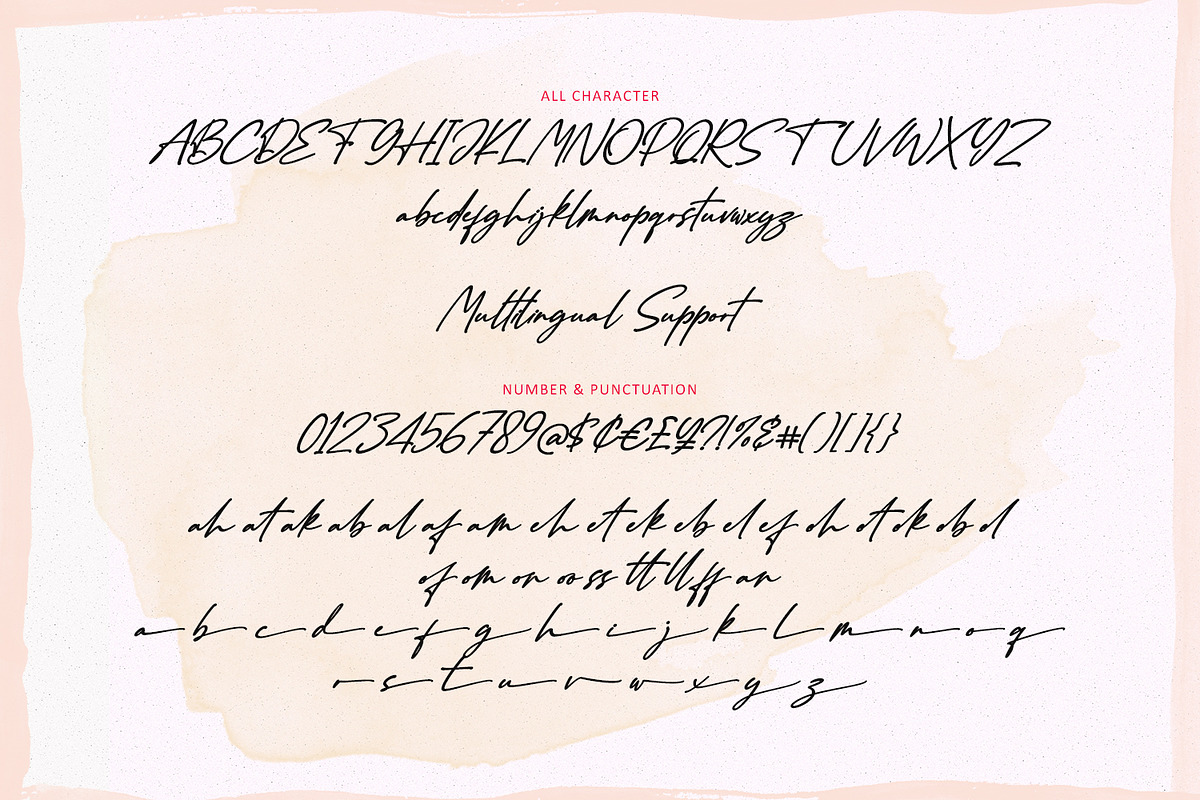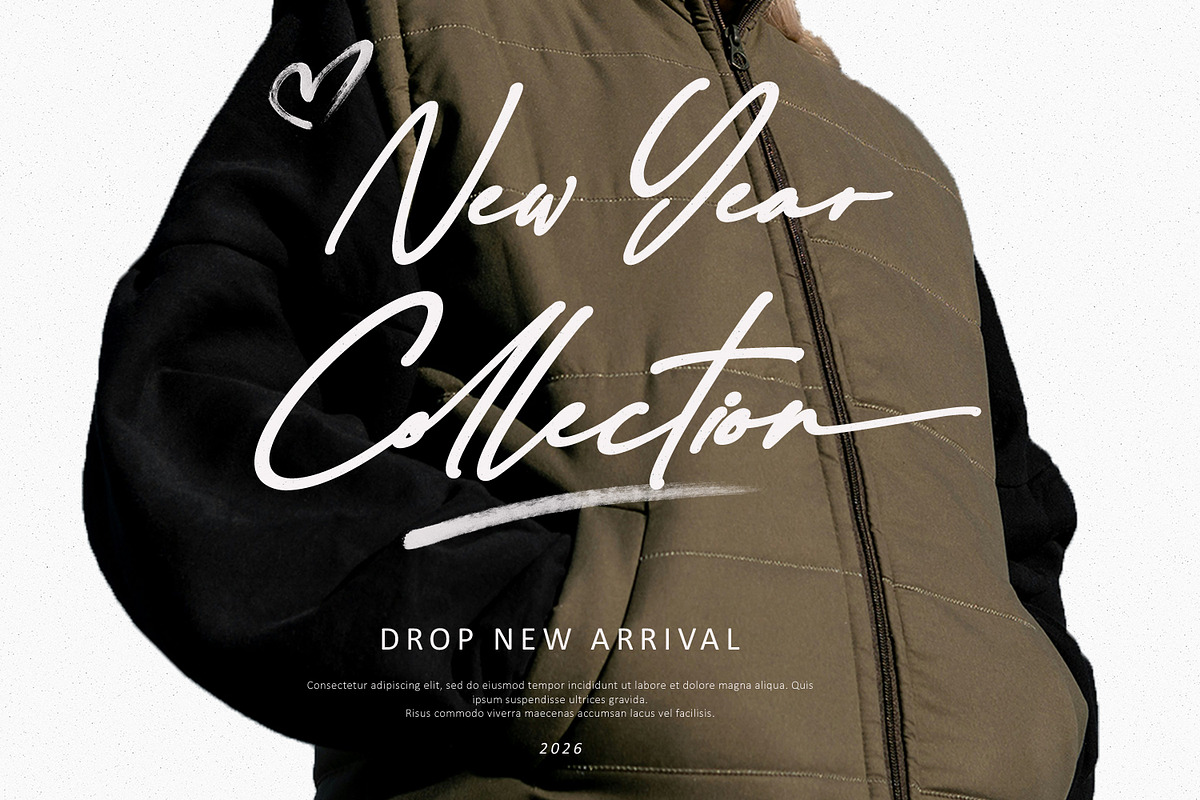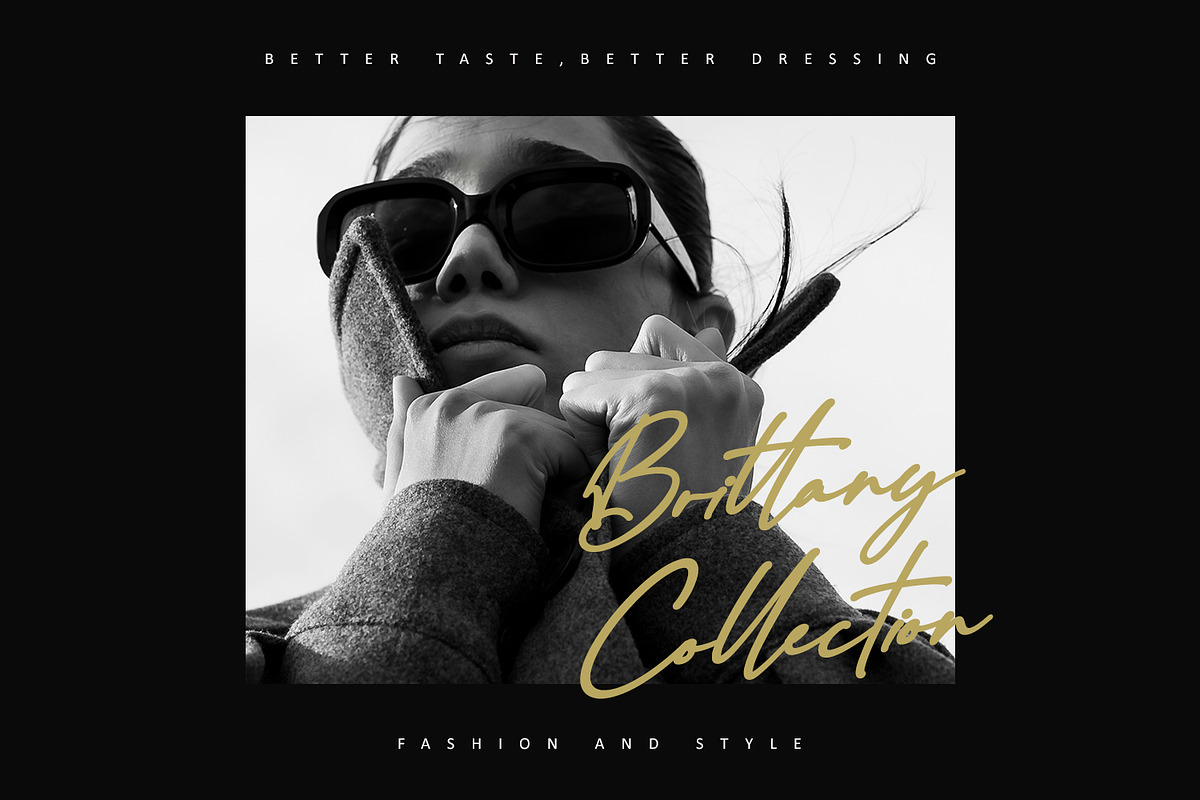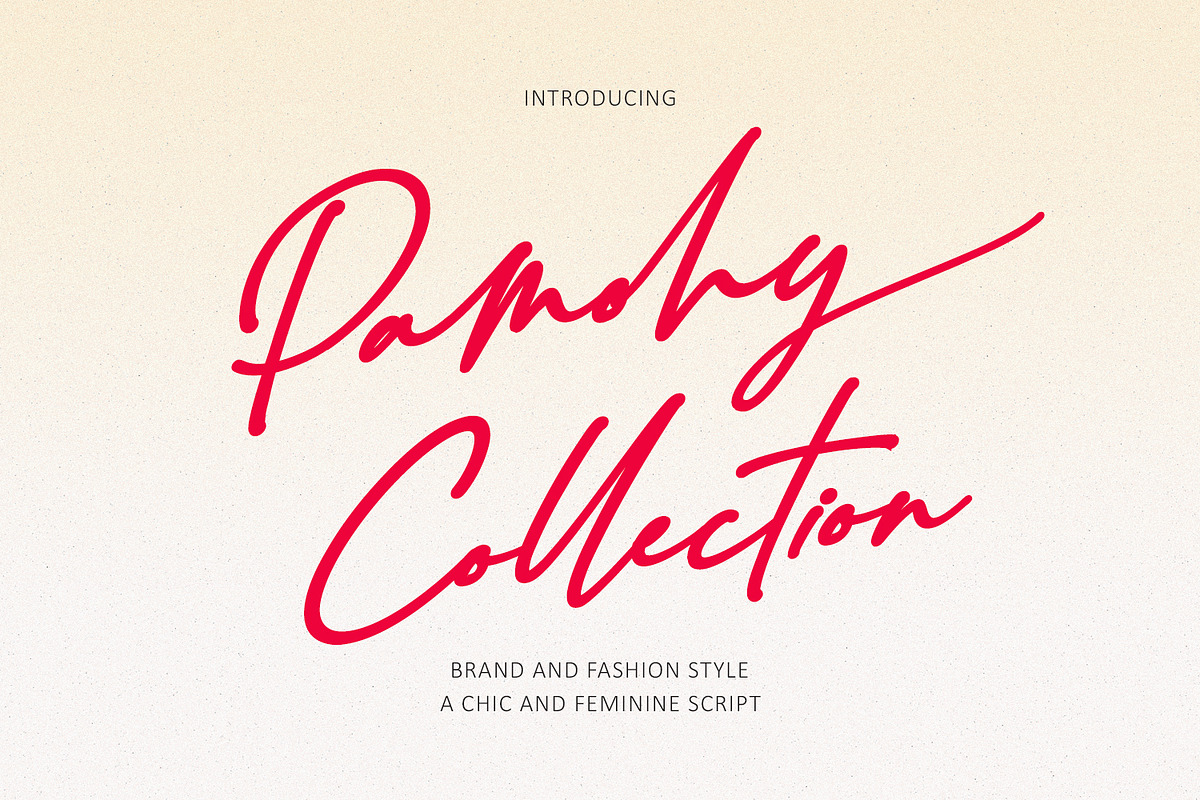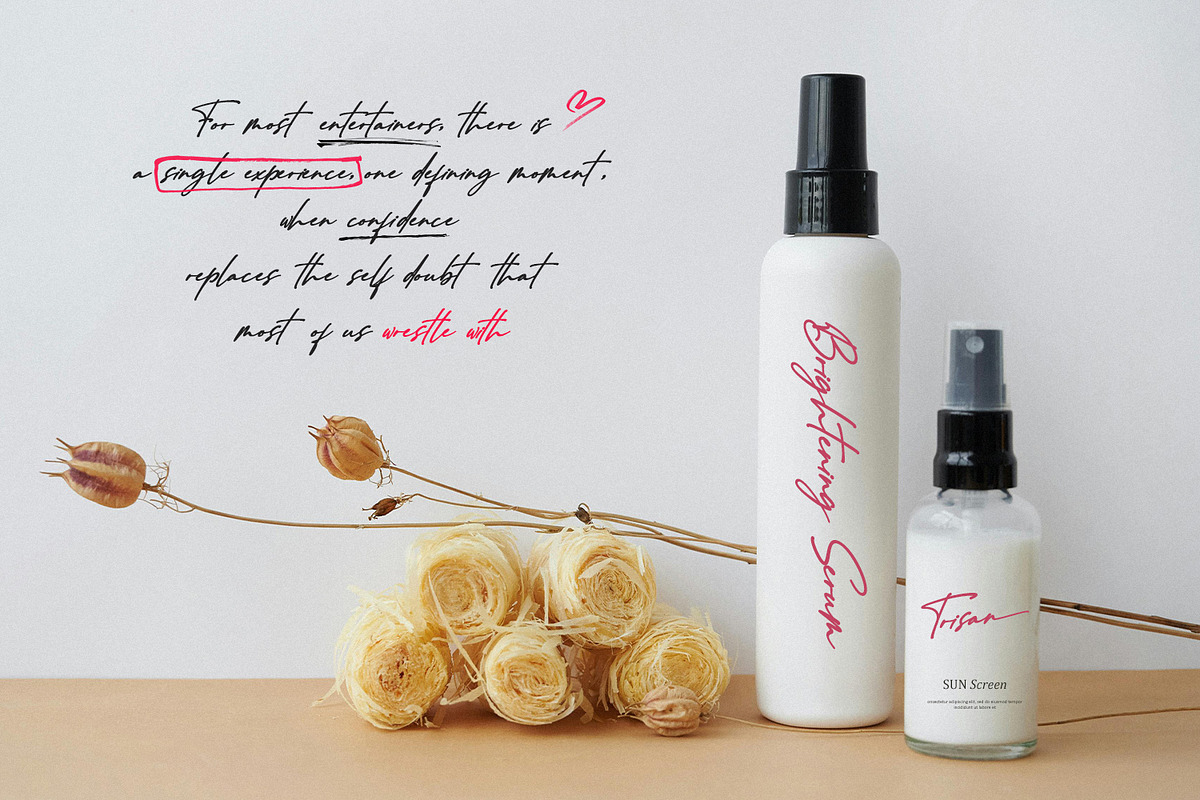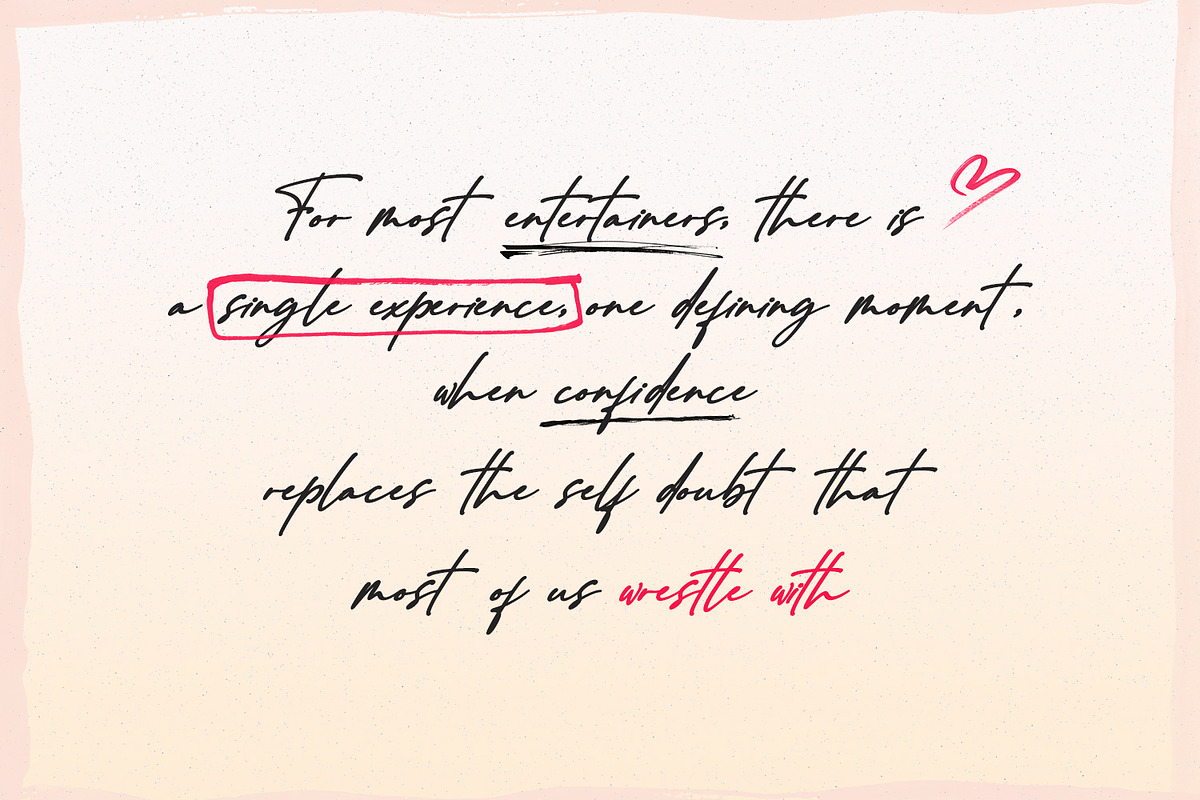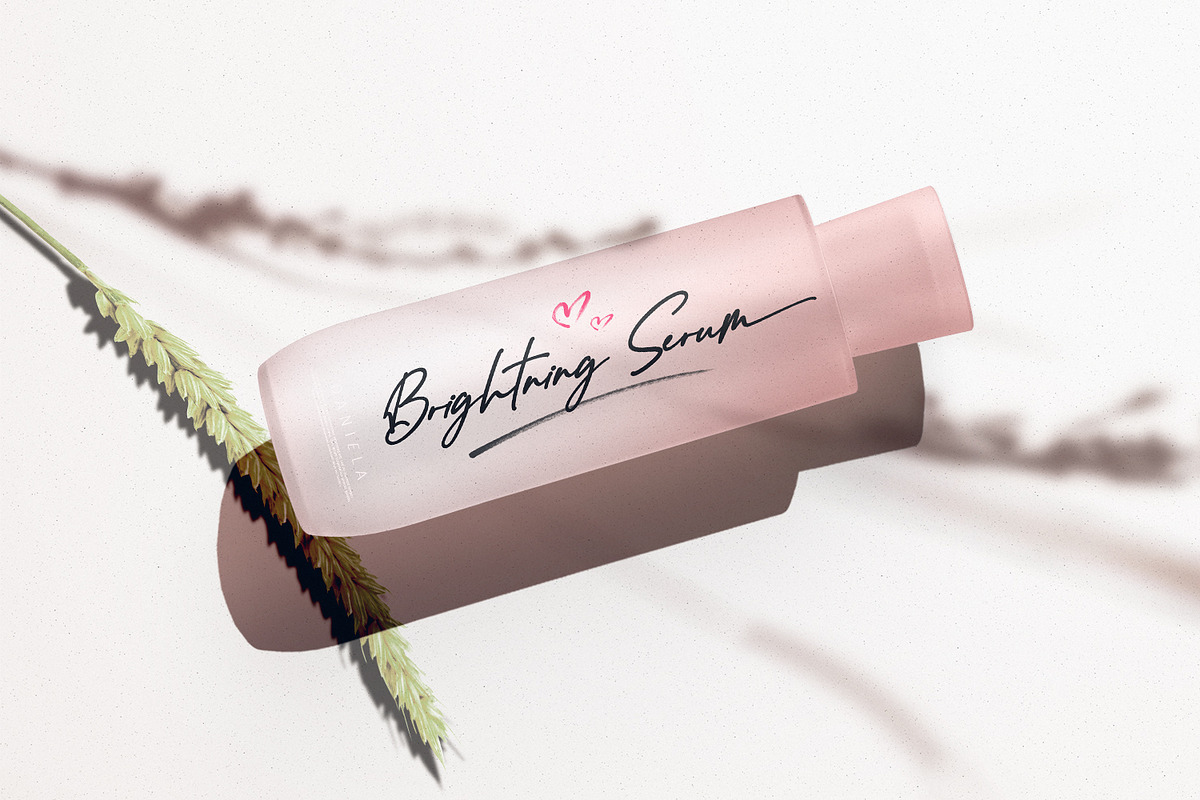
Pamohy Collection – A Chic & Feminin
Pamohy Collection is a chic and feminine handwritten script font designed to bring elegance and modern style to your designs. Featuring smooth curves and expressive strokes, this font delivers a natural handwritten feel while maintaining a stylish and polished look.
Perfect for fashion branding, boutique logos, beauty packaging, product labels, invitations, social media content, posters, and lifestyle editorials, Pamohy Collection adds a personal and luxurious touch to any creative project.
Its flowing letterforms and graceful character make Pamohy Collection an excellent choice for designers looking to create modern, feminine, and sophisticated visual identities with a warm and authentic handwritten style. You get file font OTF, TTF, and WOFF